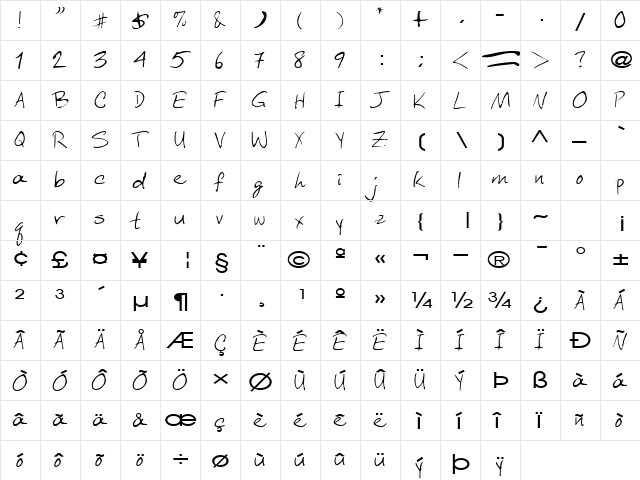
AberaHam9 Regular
Design Context for AberaHam9 Typeface
AberaHam9 is a composed and adaptable typeface that performs quietly and consistently across a wide range of design contexts.